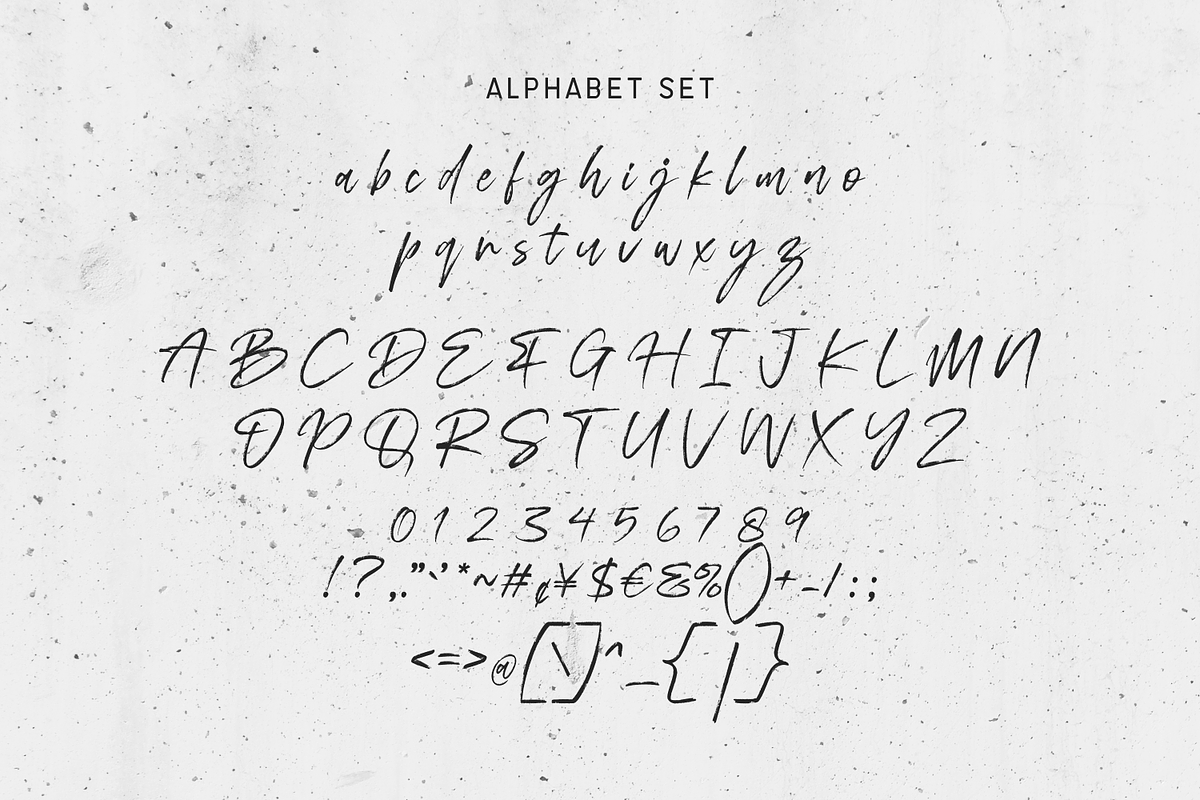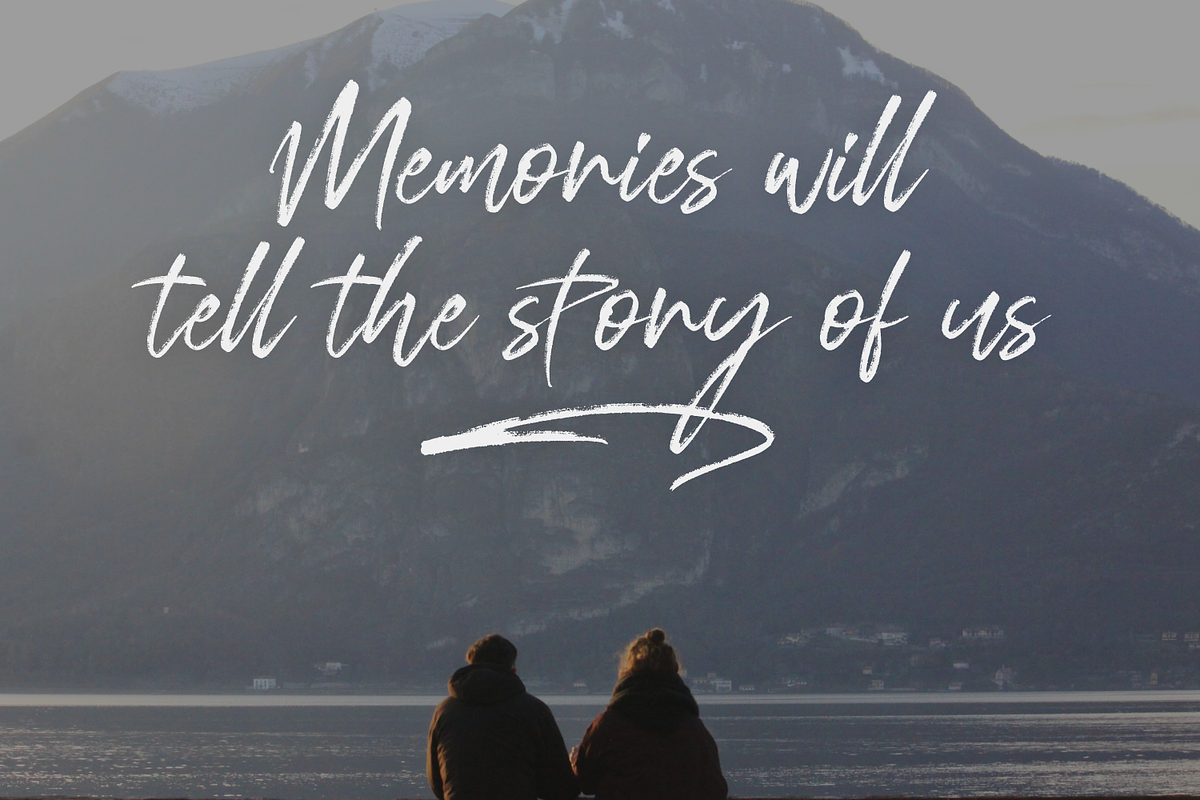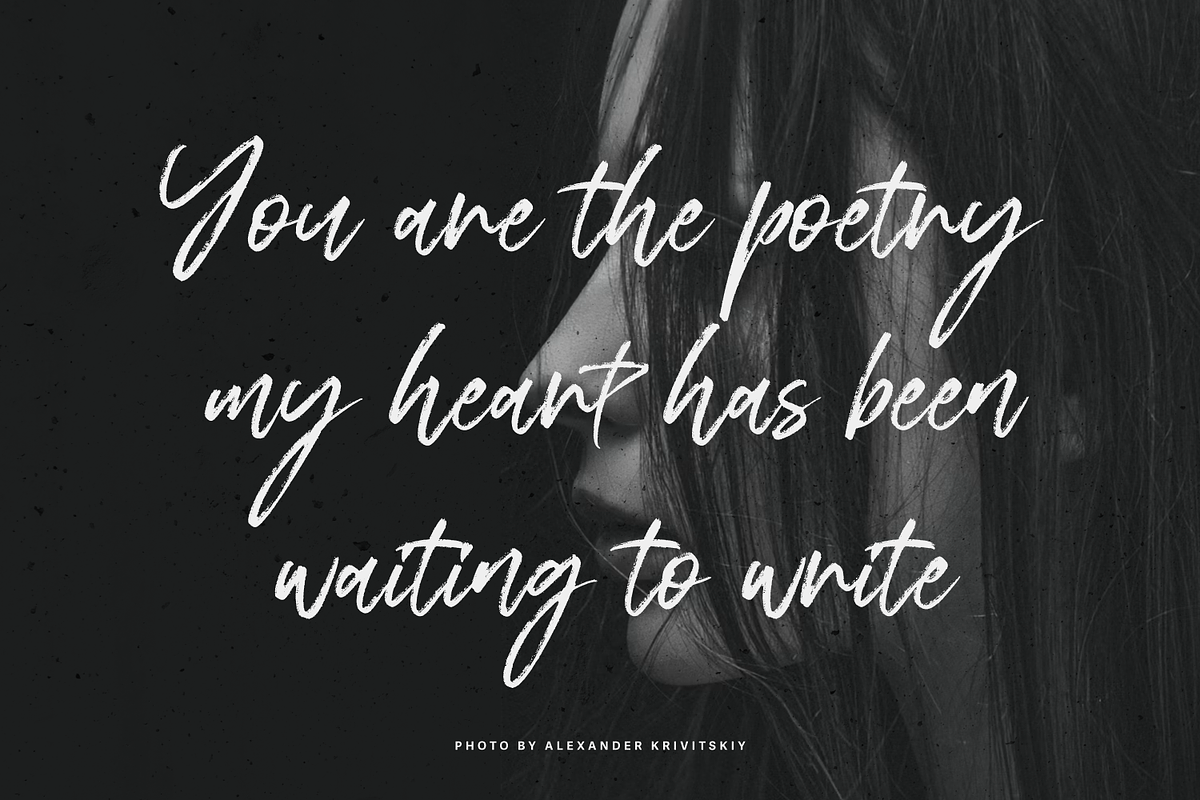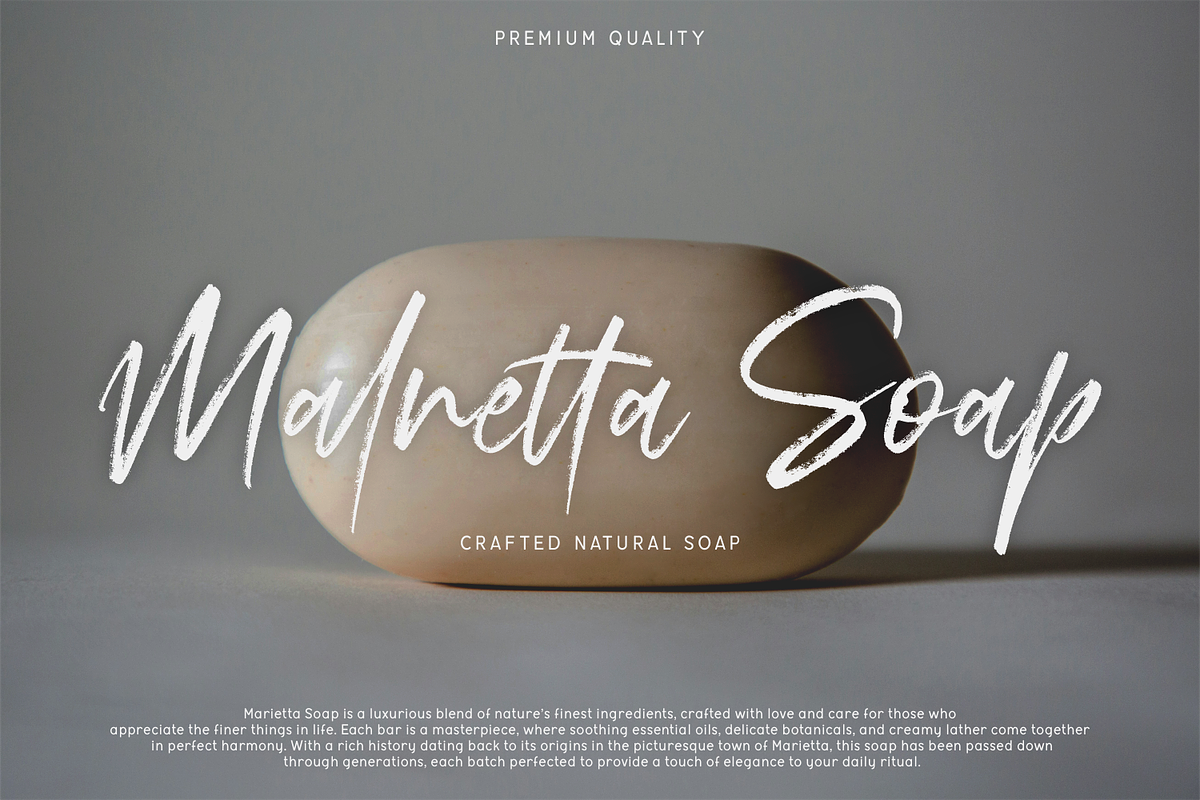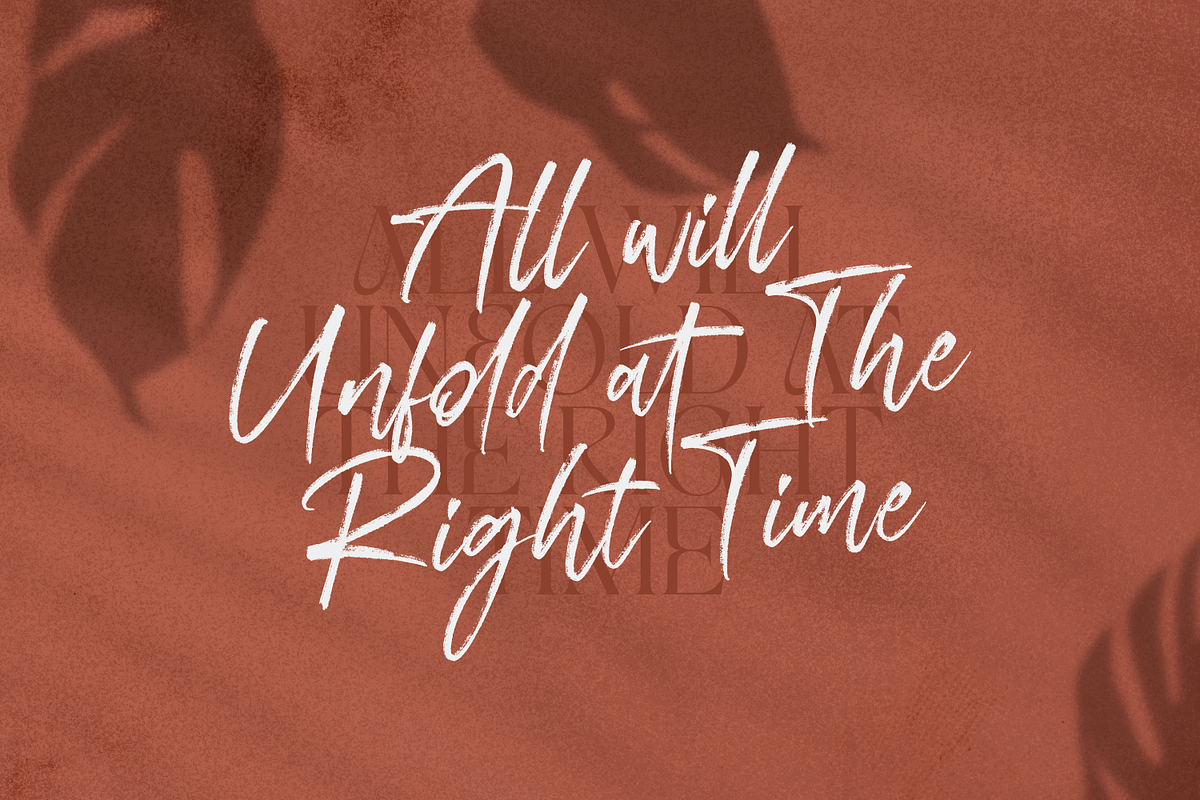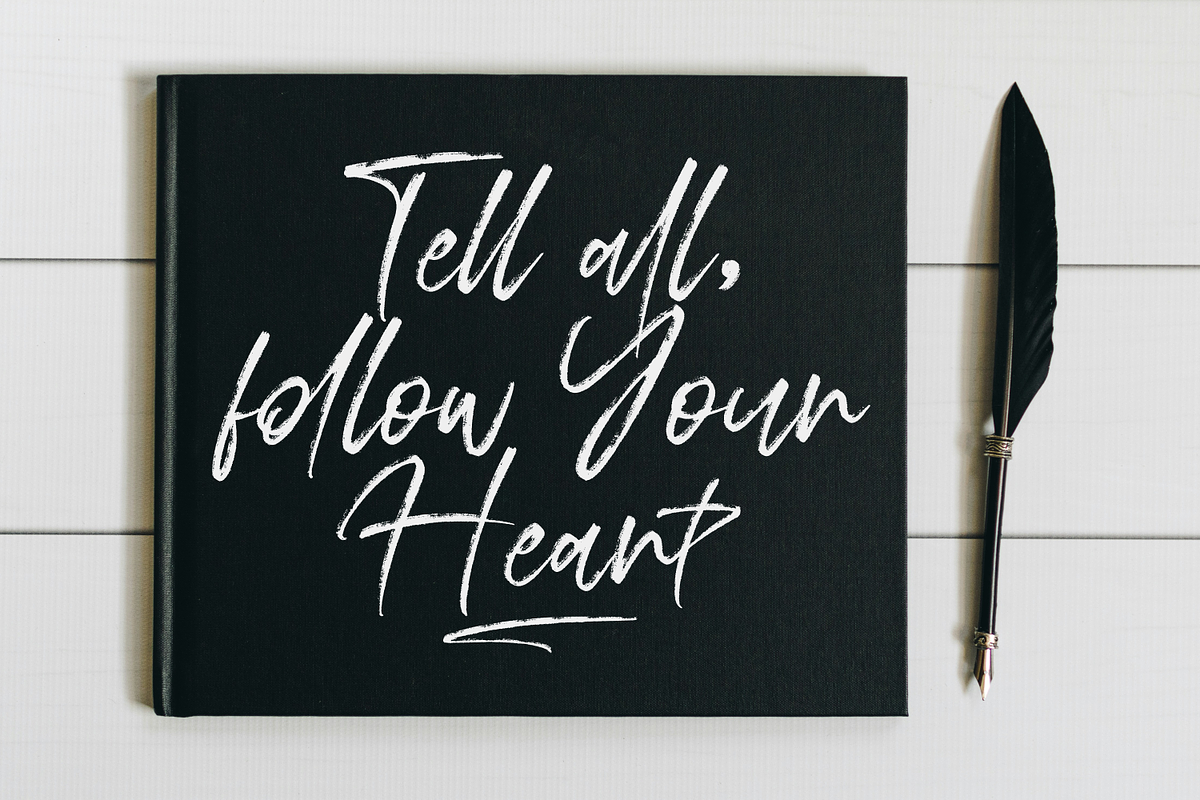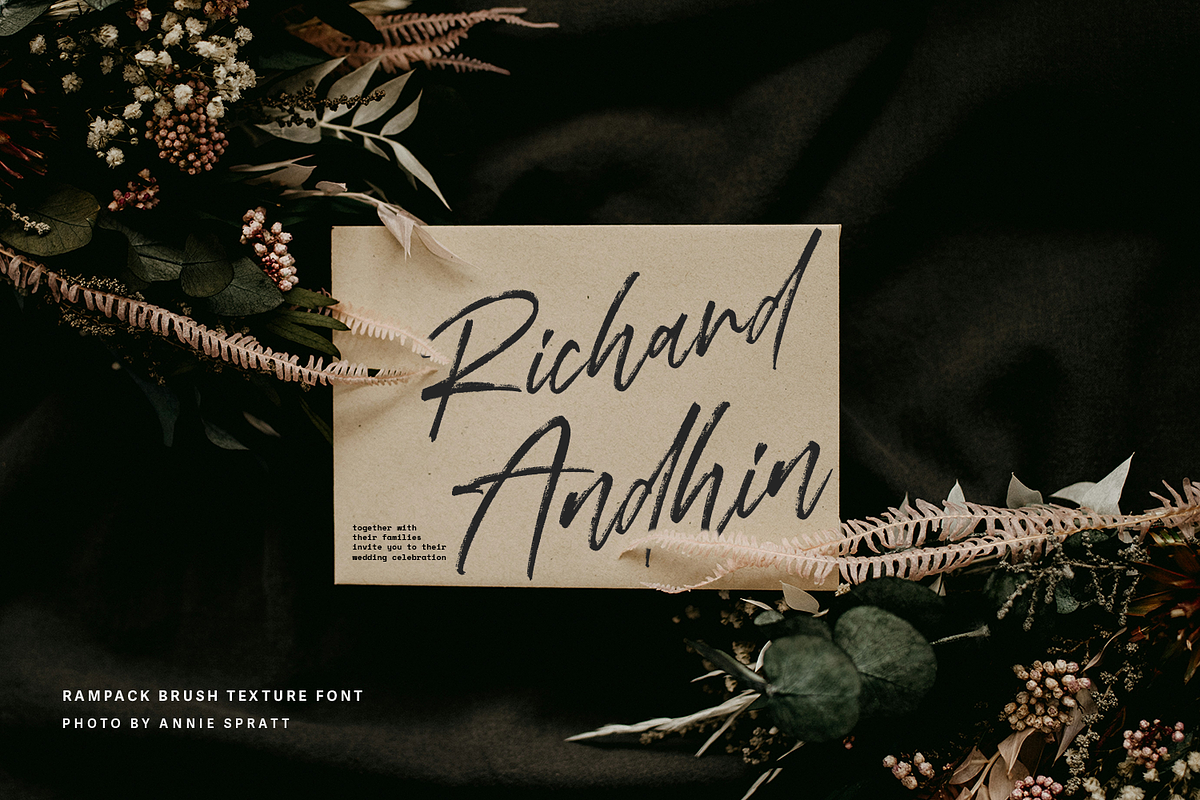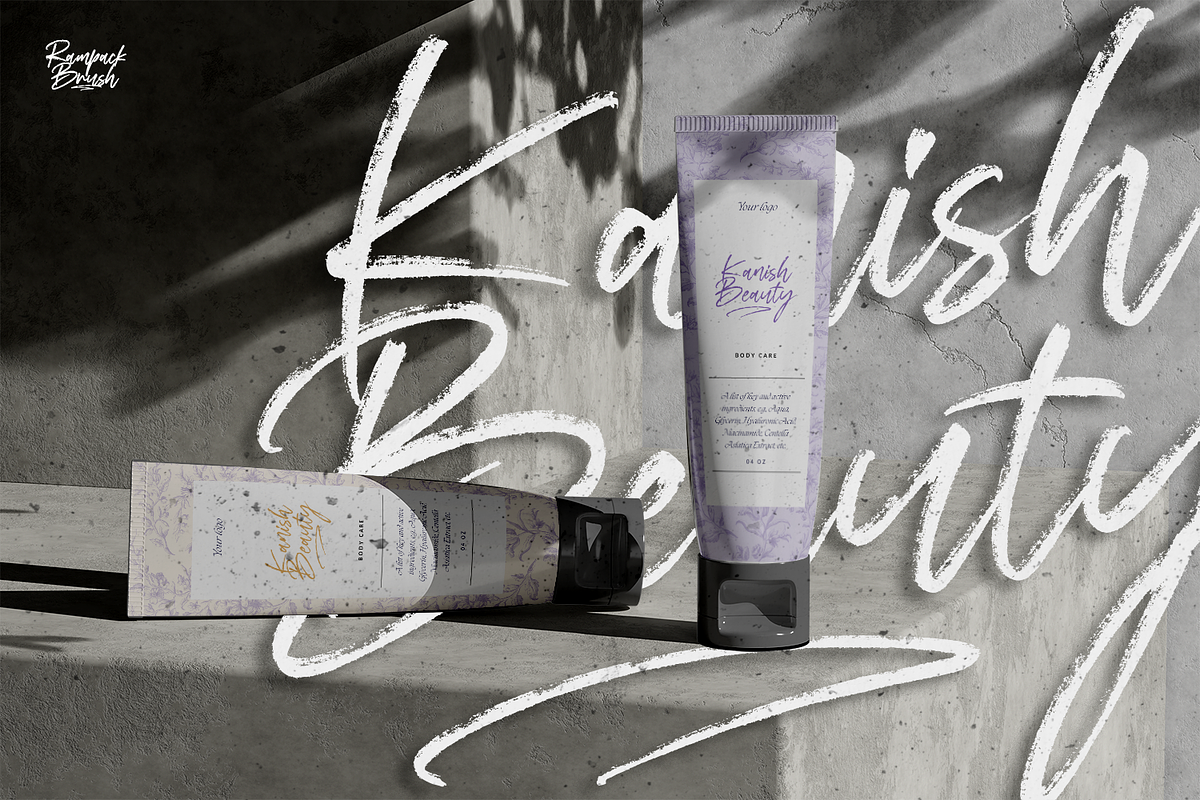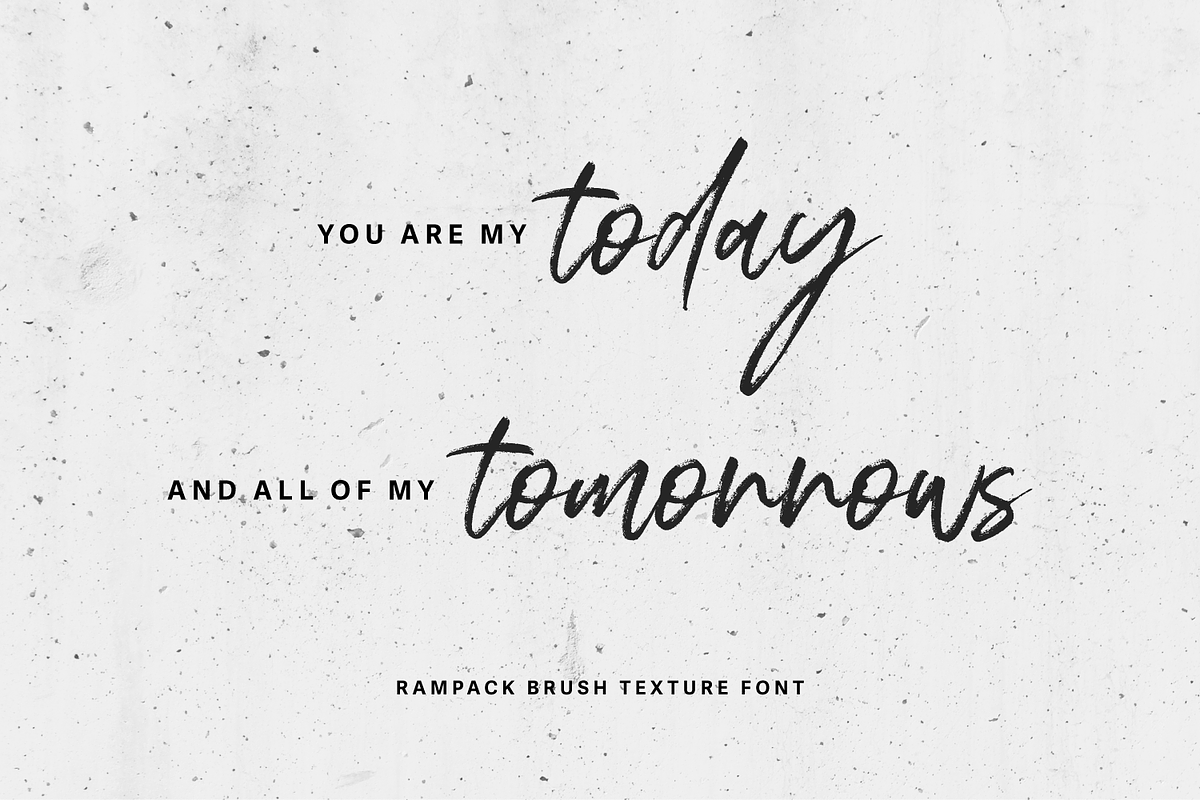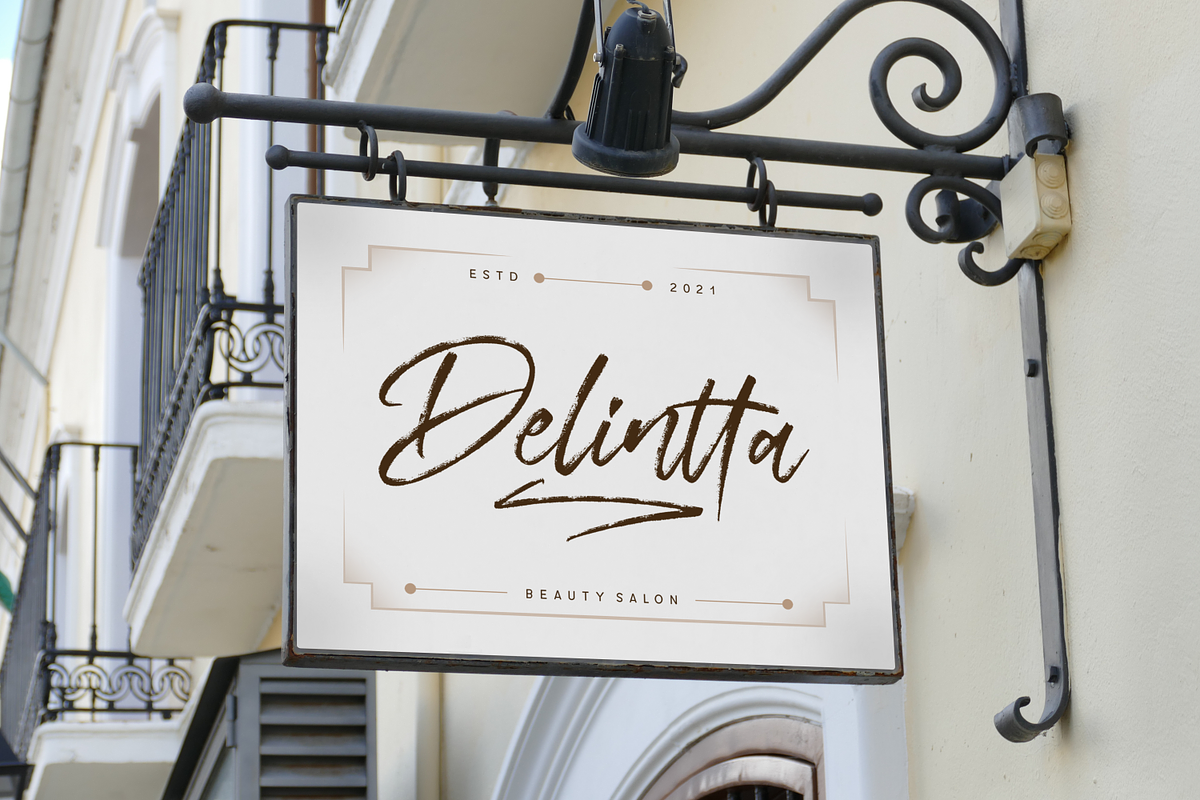
Rampack Handwritten Brush Texture
Rampack Handwritten Brush is a modern hand-brushed script font with a natural, textured feel and effortless flow. Designed to mimic authentic handwriting, Rampack offers alternatives and ligatures for natural results, as well as swabs, allowing endless customization for a truly organic look.
Perfect for logos, branding, wedding invitations, elegant stationery, stylish social media posts, heartfelt quotes, and artistic greeting cards, Lumiéra brings warmth and charm to any design. Its dynamic strokes and smooth curves make it both versatile and eye-catching, giving your projects a touch of uniqueness and sophistication.
- Unique Letterforms